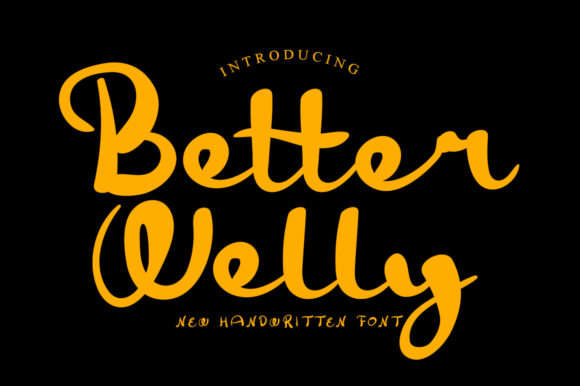
Fall in love with Better Welly, a captivating script font that transforms your words into a mesmerizing dance! With its playful yet sophisticated strokes, this font will add a touch of whimsical charm to all your creations.
Indulge in boundless creativity as Better Welly effortlessly adapts to any art project, elevating your designs from ordinary to extraordinary. Its graceful curves and enchanting loops will leave a lasting impression, making your invitations, cards, and more truly unforgettable.
Let the magic of Better Welly ignite your imagination and ignite a passion for handwritten beauty.